Arch
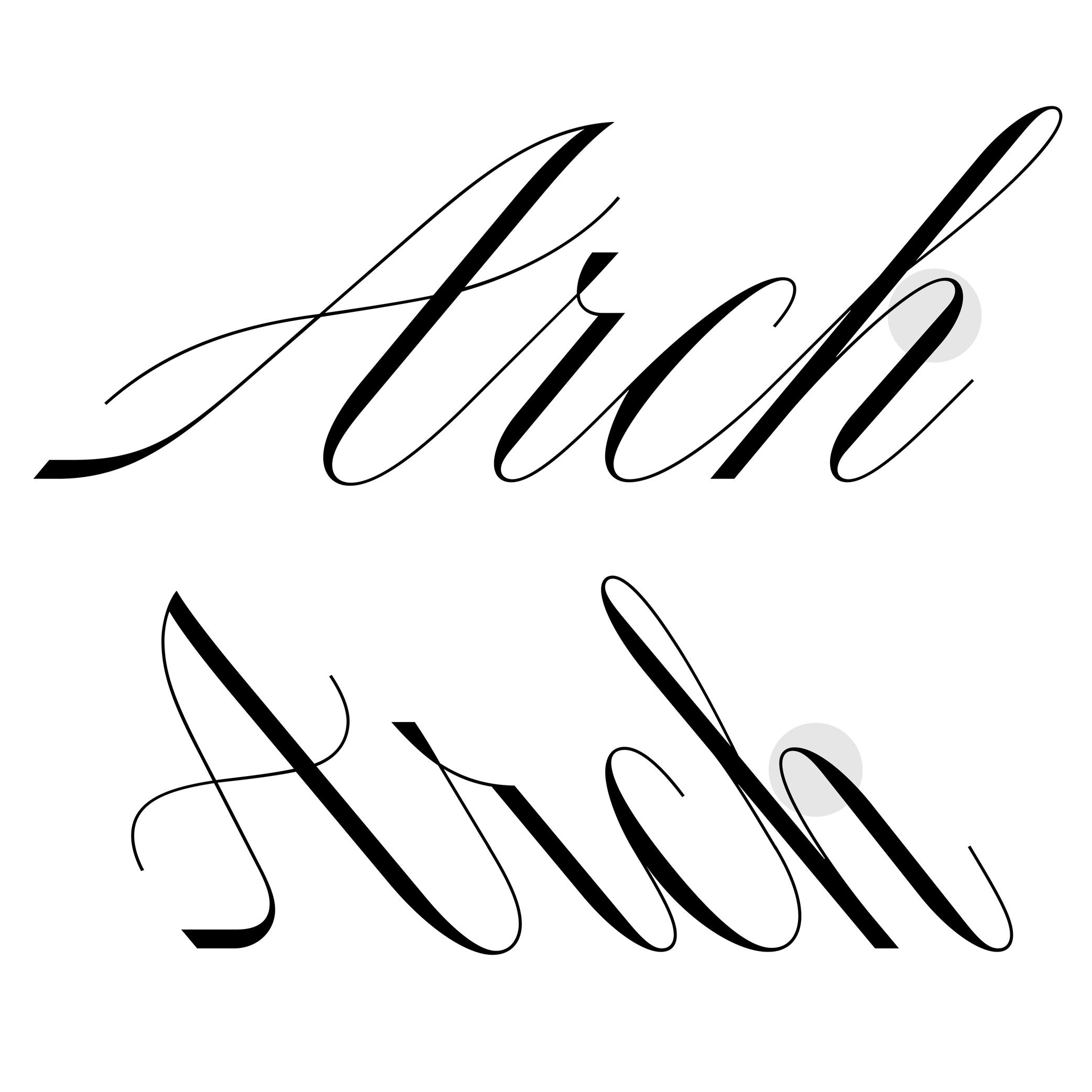
Many terms are borrowed from architecture or human and animal anatomy to designate and describe parts of letters and other characters. We even speak of type design anatomy.
In Latin script, the arch is the top-right part of letters such as n, m, h and a.